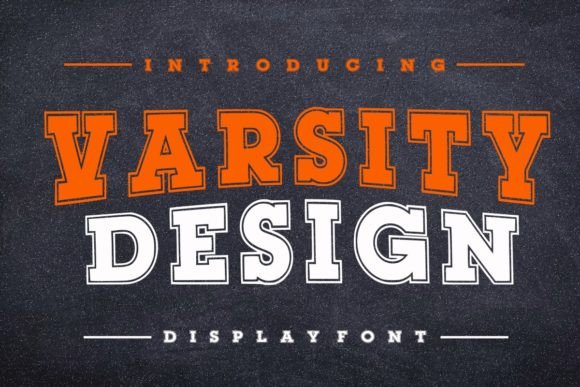
Welcome to the world of Varsity Design Font, the ultimate choice for all your winter and holiday branding projects! Created by Infinity Art Studio, this modern and bold display font is guaranteed to elevate your designs and make them stand out from the crowd.
Are you tired of the same old boring fonts that lack creativity and originality? Look no further, because Varsity Design Font is here to revolutionize your design game. With its captivating and eye-catching qualities, this font is perfect for all your branding needs.
Whether you're working on a product packaging, invitation, quote, t-shirt, label, poster, or even a text effect, Varsity Design Font will exceed your expectations. Its versatility knows no bounds, allowing you to create stunning designs that leave a lasting impression on your audience.
What sets Varsity Design Font apart from the rest is its ability to evoke emotions and create a strong connection with your target audience. With just one glance, this font will transport your viewers to a world of winter wonderland and holiday cheer. Imagine the impact it will have on your customers when they see your beautifully designed signage or logo using the best font for signboards.